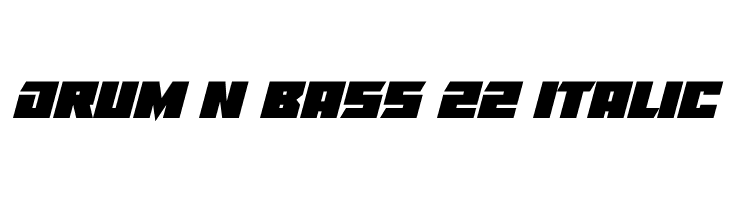
A bold, geometric font with a futuristic and digital style.
A bold, angular font with a futuristic and dynamic style.
A bold, geometric font with a futuristic and angular design.
A bold, angular, and italic font with a futuristic and dynamic style.
A bold, italicized font with sharp angles and a futuristic design.
A bold, angular font with a modern, aggressive style.
A bold, italicized font with a futuristic and robotic design.
A bold, futuristic font with geometric and angular design elements.
A bold, angular font with a futuristic and edgy design.